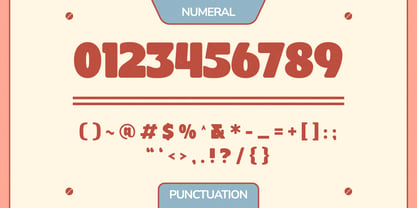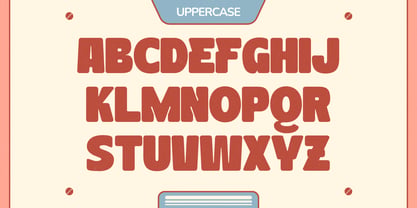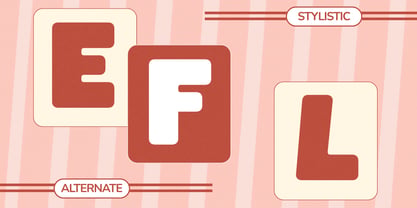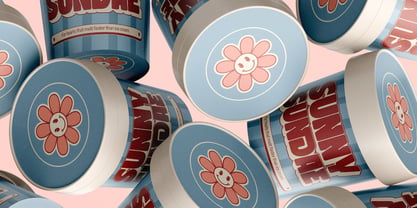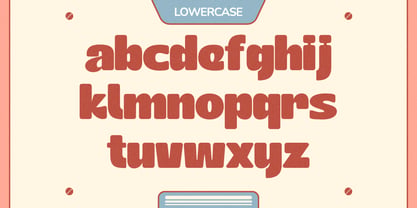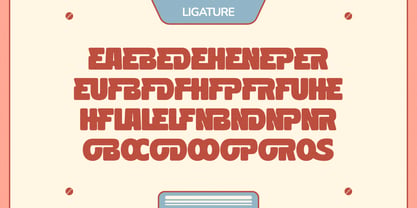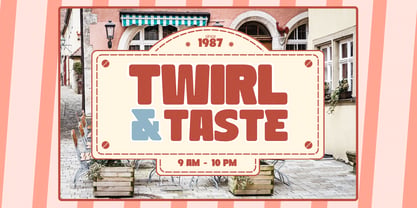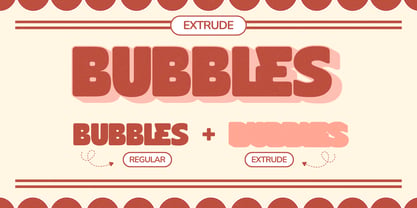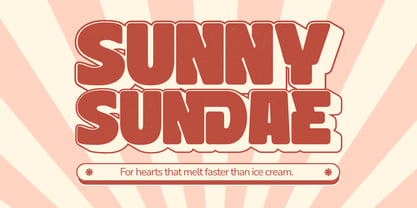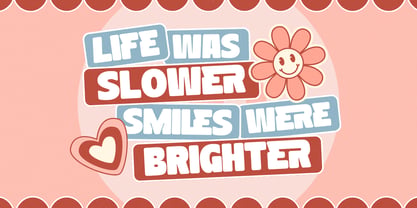
Retro Depa
by Nirmana Visual
The Retro Depa Font Family was designed by Sigit Dwipa and published by Nirmana Visual. Retro Depa contains 2 styles and family package options. More about this family
Retro Depa - Branding Food Logo Font Retro Depa is a stylish vintage-inspired font that brings a nostalgic touch to your designs. Featuring both extrude and regular styles, it captures the bold and playful essence of retro typography. Perfect for logo and branding projects, food product packaging, posters, and labels, Retro Depa adds warmth and authenticity to any visual. Its unique character shapes make your design stand out with a timeless, classic charm.
Designers: Sigit Dwipa
Foundry: Nirmana Visual